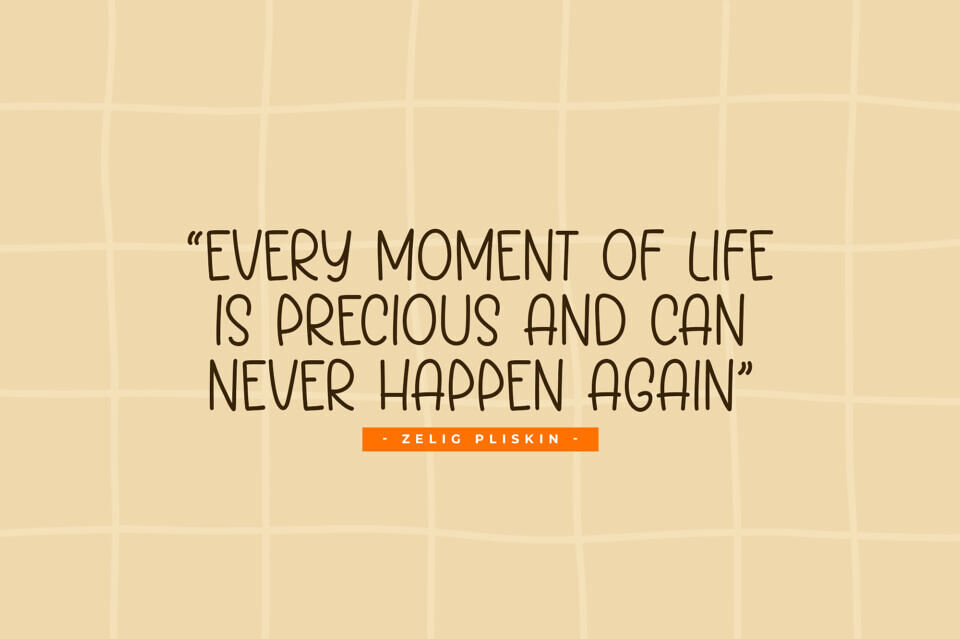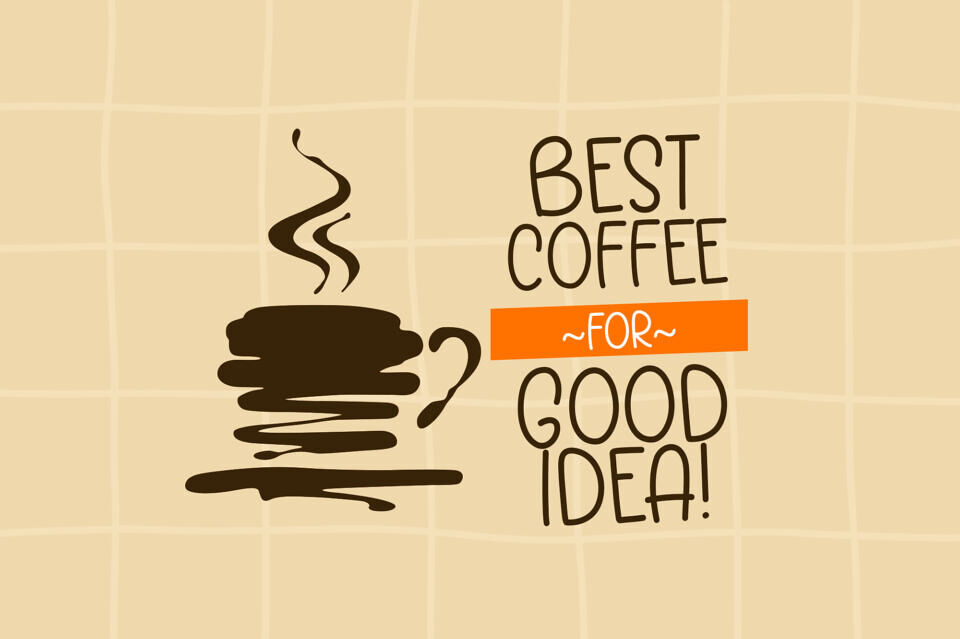
Bright One Font
Bright One is a modern and cute display font perfect for posters, logos, magazines, book covers, banners, and many more! Get this amazing font, and use it to create lovely designs.
Designed by: Khurasan (Syafrizal)